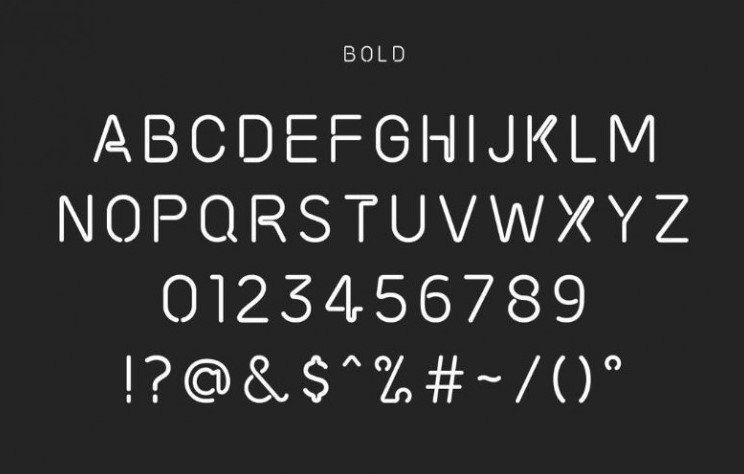
Sharing the Neon Tube Light Font is a fantastic way to incorporate a unique lighting typeface into your designs. This font was created with inspiration from real-world signs, giving it a truly authentic look and feel with its rounded textures and corners. Feel free to use this font in your projects to create visually striking and impactful designs.
The font is basically used in adobe photoshop, illustrator or in css for designing the attractive lighting text or colorful theme for taking the attention of the aurdiens.
Here we provide an image which includes the characters and letters of this beautiful font which is best and great for pairing use with bahnschrift font, you can perceives it by viewing on the image and get an idea how delightful it is.